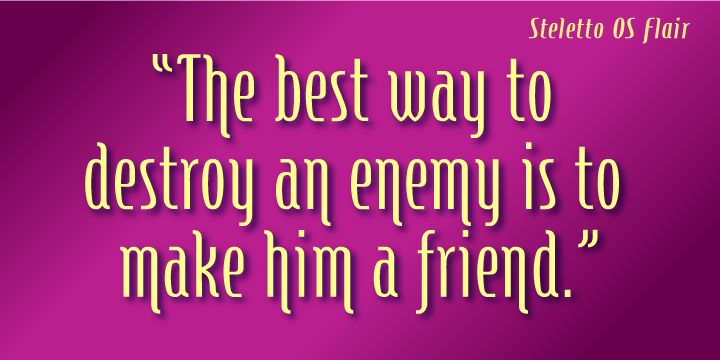
Condensed Oldstyle Gothic with flair. Great for tight-fitting headlines and other condensed titling situations such as headlines, ads, invitations, captions, packaging, bulletins, posters, and greeting cards.